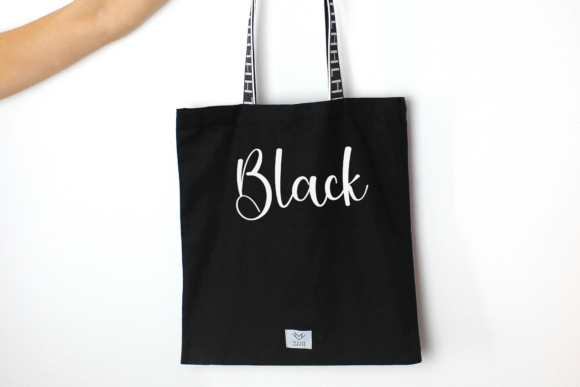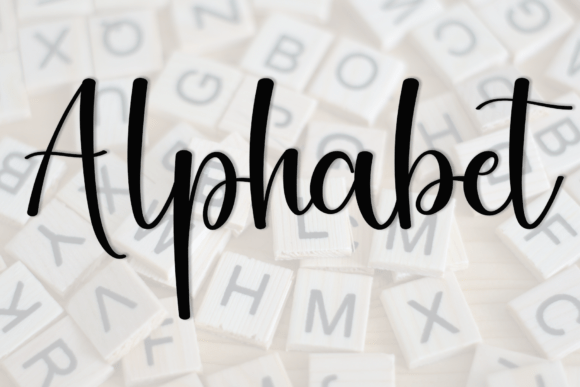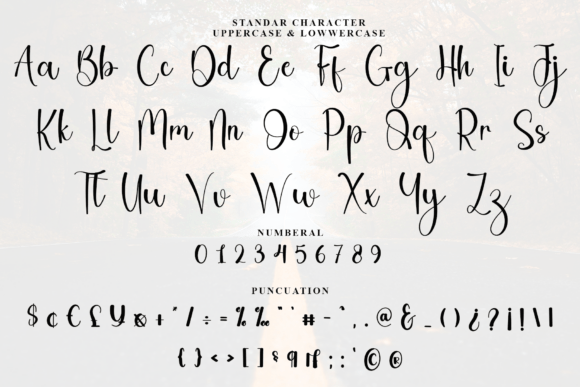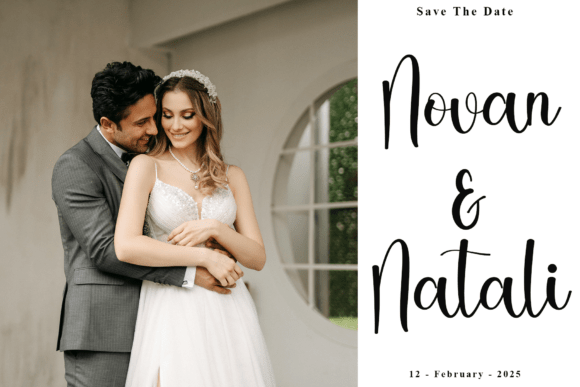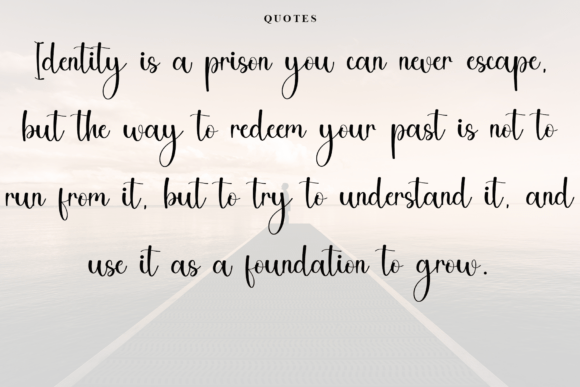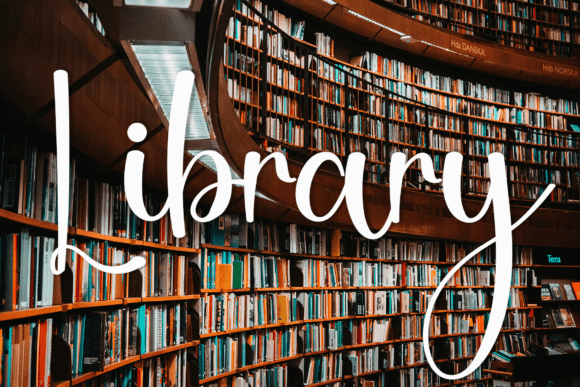
Introducing Black History Font: Elevate Your Designs with Elegance and Charm
Are you a designer or crafter looking for a font that adds a touch of sophistication and elegance to your projects? Look no further than the Black History Font, a stylish handwritten script font that exudes charm and refinement. With its flowing, graceful curves, this font is perfect for creating stunning invitations, logos, and branding materials that leave a lasting impression.
The Beauty of Black History Font
Black History Font is a masterpiece of typography, designed to bring a sense of warmth and creativity to your designs. Its delicate strokes and smooth lines create a sense of fluidity, making it perfect for projects that require a personal and sophisticated touch. Whether you’re designing wedding invitations, business logos, or social media graphics, this font is sure to elevate your work and make it stand out from the crowd.
Key Features of Black History Font
- Elegant and Refined: Black History Font boasts a sophisticated and elegant design, perfect for high-end branding and luxury projects.
- Handwritten Script: The font’s handwritten script style adds a personal touch to your designs, making them more approachable and engaging.
- Flowing Curves: The font’s flowing curves and smooth lines create a sense of fluidity, making it perfect for creating beautiful and elegant designs.
- Delicate Strokes: The font’s delicate strokes bring warmth and creativity to your projects, adding a touch of sophistication and refinement.
- Versatile: Black History Font is perfect for a wide range of design projects, including invitations, logos, branding, and more.
Uses for Black History Font
Black History Font is a versatile font that can be used for a wide range of design projects. Here are some ideas to get you started:
- Wedding Invitations: Create stunning wedding invitations that set the tone for a beautiful and elegant wedding.
- Logos and Branding: Use Black History Font to create sophisticated and elegant logos and branding materials that reflect your brand’s values and personality.
- Social Media Graphics: Add a touch of elegance and sophistication to your social media graphics, including Facebook posts, Instagram stories, and more.
- Stationery and Paper Goods: Create beautiful stationery and paper goods, including notecards, letterhead, and more.
Tips for Using Black History Font
Here are some tips for getting the most out of Black History Font:
- Pair with Other Fonts: Pair Black History Font with other fonts to create a unique and visually appealing design.
- Use for Headlines and Titles: Use Black History Font for headlines and titles to add a touch of elegance and sophistication.
Black History Font is a beautiful and elegant handwritten script font that is perfect for designers and crafters looking to add a touch of sophistication and refinement to their projects. With its flowing curves, delicate strokes, and versatile design, this font is sure to elevate your work and make it stand out from the crowd. Whether you’re designing invitations, logos, or social media graphics, Black History Font is the perfect choice for any project that requires a personal and sophisticated touch.